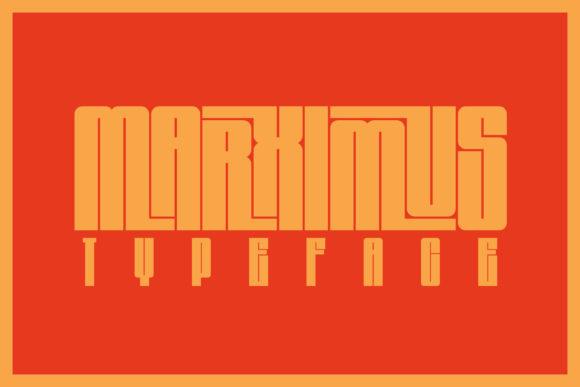
Introducing Marximus Font, the ultimate choice for all Game of Thrones fans in search of a captivating and powerful font! Created by the talented Toko Laris Djaja, this bold sans serif font is designed to elevate your projects to new heights. With its exciting characters and simple condensed blocky design, Marximus is guaranteed to leave a lasting impression.
Whether you're designing posters, book covers, apparel, merchandise, or social media content, Marximus Font is the perfect companion for your creative endeavors. Its extensive ligatures add a touch of uniqueness and sophistication to your text, making it stand out from the crowd. This font is not just versatile; it's a statement in itself.
Imagine the impact Marximus Font can have on your project. Its bold and commanding presence instantly captures attention and evokes a sense of power and intrigue. The carefully crafted characters are infused with emotion, ensuring that your message resonates with your audience on a deep level.
With Marximus Font, your designs will become a visual masterpiece. Every letter is meticulously designed to create a harmonious flow and balance, resulting in a stunning visual experience. The font's versatility allows you to experiment and explore various styles, giving you the freedom to express your creativity with ease.
But it doesn't stop there. Marximus Font is more than just a font; it's a gateway to a world of endless possibilities. Its captivating presence brings your projects to life, transporting your audience into a realm of imagination and excitement. Whether you're designing for a Game of Thrones-inspired event or seeking to make a bold statement, Marximus Font will exceed your expectations.